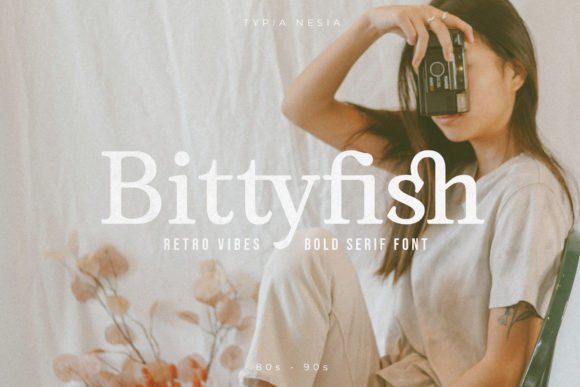
The Perfect Catch: Discover the Bittyfish Font
Have you ever found yourself stuck in a creative rut, staring blankly at your computer screen, searching for the perfect font to elevate your design? I know I have. It’s like trying to find the perfect catch in a sea of options – until you stumble upon the Bittyfish Font. This retro and stylish serif font is a game-changer for designers looking to add a touch of elegance and sophistication to their projects.
Bittyfish Font is perfect for any project that needs a beautiful script taste, from logos and branding projects to labels, photography, and watermarks. Its versatility and timeless charm make it a valuable addition to any designer’s toolkit. Whether you’re working on a special event or a personal project, the Bittyfish Font is sure to make a lasting impression.
Bittyfish Font Key Features
- Unique Characteristics: Bittyfish Font features a distinctive, whimsical design with bold lines and playful shapes, making it ideal for use in children’s books, educational materials, and other applications where a friendly tone is desired.
- Language Support: The font supports a wide range of languages, including English, Spanish, French, German, Italian, Portuguese, and many others, making it a versatile choice for multilingual projects.
- Weight and Style Options: Bittyfish Font is available in light, regular, and bold weights, as well as italic and oblique styles, providing users with a range of options to suit their design needs.
- Scalability: The font is designed to be highly scalable, making it suitable for use in a variety of contexts, from small text labels to large display headings.
Bittyfish Font Review
I recently had the chance to work with the Bittyfish Font, and I’m excited to share my honest thoughts with you. This font is a unique addition to any design project, and here’s what I think works well:
- ✨ The font’s playful and whimsical feel makes it perfect for children’s books, educational materials, or any project that needs a lighthearted touch.
- ✨ The Bittyfish Font is highly customizable, with a wide range of weights, styles, and sizes to choose from. This makes it easy to adapt to different design needs and moods.
- ✨ The font’s legibility is surprisingly good, considering its playful nature. It’s easy to read, even at smaller sizes, making it a great choice for body text.
However, I did encounter a few limitations:
- ⚠️ The font may not be suitable for formal or professional projects, as its playful feel may come across as immature or unprofessional.
- ⚠️ The font’s customization options can be overwhelming, especially for designers who are new to working with fonts. It may take some time to get familiar with all the options.
Overall, I’m impressed with the Bittyfish Font’s potential and versatility. While it may not be the best choice for every project, it’s definitely a great addition to any designer’s toolkit. With some careful consideration of its limitations, I think it can be a valuable asset for any design project.
The Bittyfish font is ideal for:
- Infographics and educational materials
- Whimsical and playful designs
For optimal use, pair the Bittyfish font with other playful fonts and bold, bright colors to create a visually appealing design.
Q: What is the character set of Bittyfish Font?
Bittyfish Font includes a comprehensive character set, including:
- Latin alphabet (A-Z, a-z)
- Numbers (0-9)
- Punctuation marks
- Special characters (e.g., currency symbols, accents)
- Extended characters (e.g., Greek, Cyrillic, Hebrew)